Introduction to Chalkboard Fonts in Canva
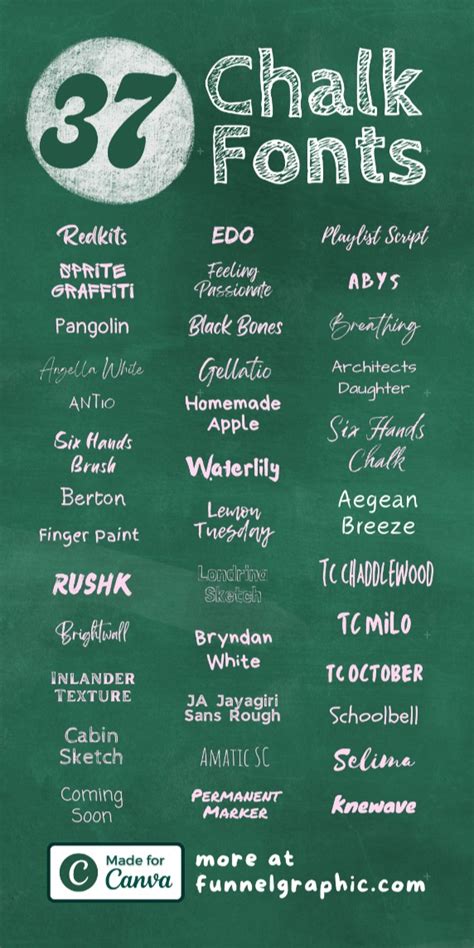
Canva is a popular graphic design platform that offers a wide range of fonts, including chalkboard fonts, to help users create visually appealing designs. Chalkboard fonts are a great way to add a touch of nostalgia and elegance to your designs, and Canva makes it easy to access and use these fonts. In this article, we will explore five chalkboard fonts available in Canva and provide tips on how to use them effectively in your designs.
Why Use Chalkboard Fonts in Canva?
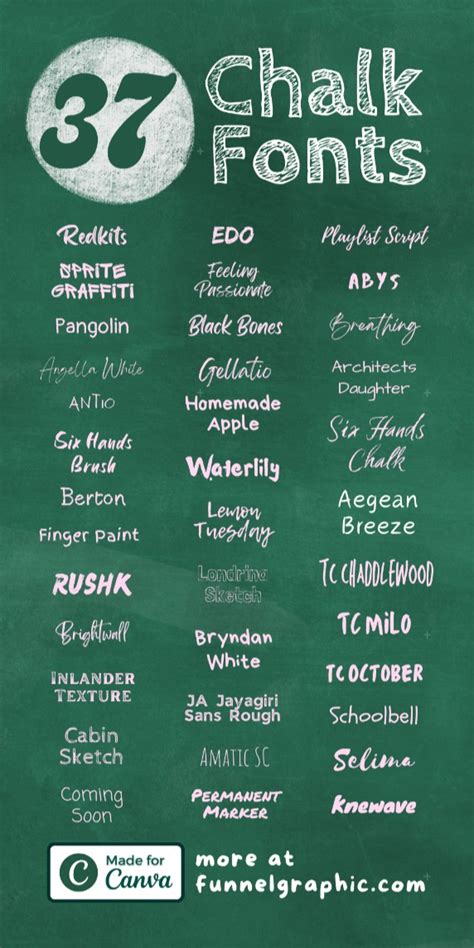
Chalkboard fonts are perfect for creating designs that require a vintage or rustic feel. They can be used for a variety of purposes, such as creating menus, invitations, and social media graphics. Canva’s chalkboard fonts are highly customizable, allowing you to change the color, size, and style to fit your design needs. Additionally, Canva’s user-friendly interface makes it easy to experiment with different font combinations and layouts.
5 Chalkboard Fonts Available in Canva
Here are five chalkboard fonts available in Canva that you can use to add a touch of elegance to your designs: * Pacifico: A beautiful, modern script font that is perfect for creating elegant designs. * Great Vibes: A fun, playful font that is great for creating social media graphics and invitations. * Ostrich Sans: A unique, handwritten font that is perfect for creating menus and signage. * Reenie Beanie: A cute, whimsical font that is great for creating children’s designs and party invitations. * Fontdiner: A classic, vintage font that is perfect for creating retro-style designs.
How to Use Chalkboard Fonts in Canva
Tips for Using Chalkboard Fonts Effectively
Here are some tips for using chalkboard fonts effectively in your designs: * Keep it simple: Chalkboard fonts can be bold and eye-catching, so keep your design simple and uncluttered. * Use contrasting colors: Use contrasting colors to make your text stand out and create visual interest. * Experiment with font sizes: Experiment with different font sizes to create a visually appealing design. * Use font combinations: Use font combinations to add depth and interest to your design.
| Font Name | Font Style | Best Use |
|---|---|---|
| Pacifico | Script | Elegant designs |
| Great Vibes | Playful | Social media graphics and invitations |
| Ostrich Sans | Handwritten | Menus and signage |
| Reenie Beanie | Whimsical | Children's designs and party invitations |
| Fontdiner | Classic | Retro-style designs |
In summary, Canva’s chalkboard fonts are a great way to add a touch of elegance and nostalgia to your designs. By following the tips and guidelines outlined in this article, you can create visually appealing designs that stand out. Whether you’re creating menus, invitations, or social media graphics, Canva’s chalkboard fonts are a great choice.
What is the best way to use chalkboard fonts in Canva?
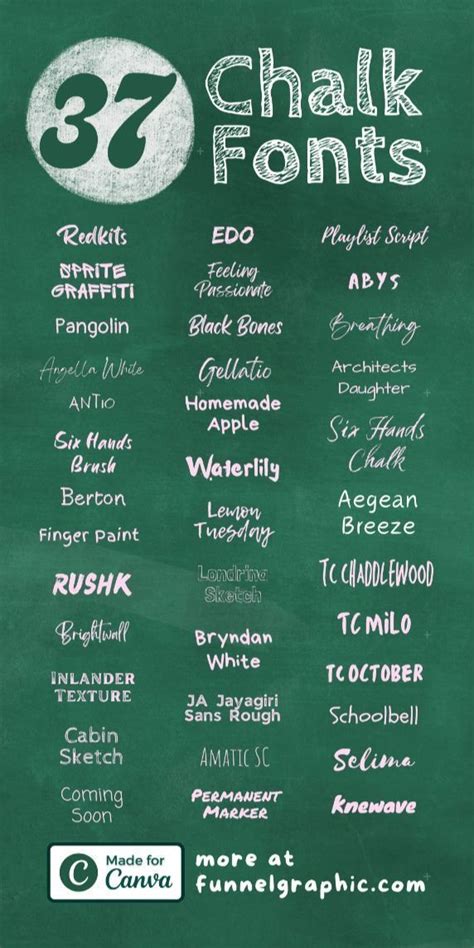
The best way to use chalkboard fonts in Canva is to keep your design simple and uncluttered, use contrasting colors, and experiment with different font sizes and combinations.
Can I use chalkboard fonts for formal designs?
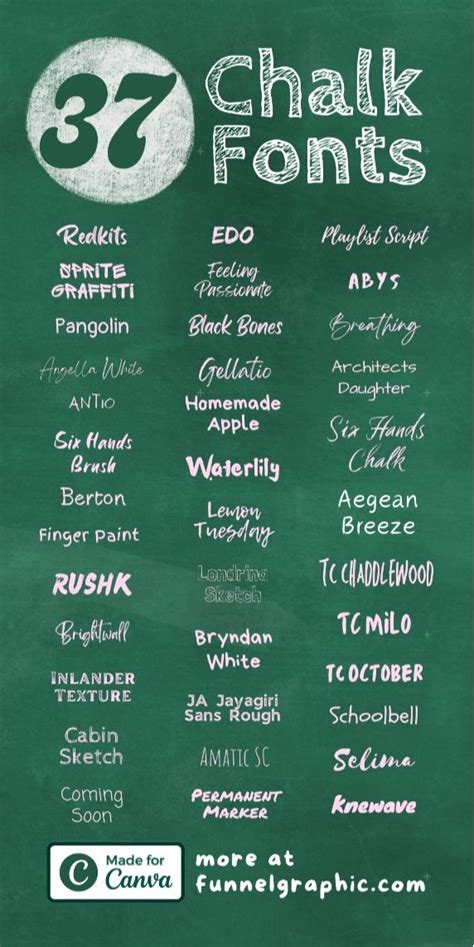
Yes, you can use chalkboard fonts for formal designs, but it’s best to use a more elegant and sophisticated font, such as Pacifico, to create a professional look.
How do I access the full range of chalkboard fonts in Canva?